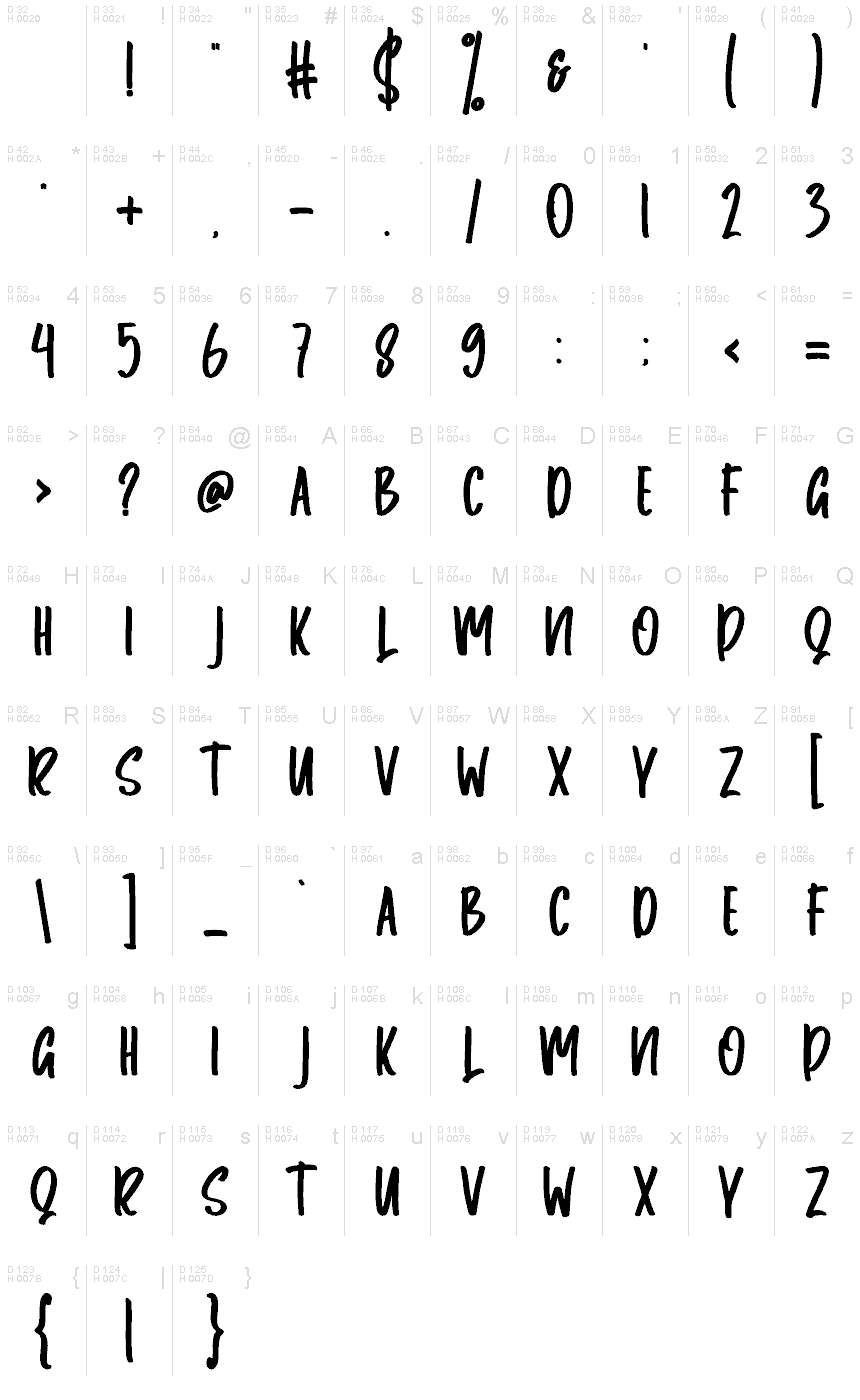
Ramens
Ramens font by Skiiller Studio is a condensed handwritten script typeface with classical and expressive forms. The font feels modern, casual, and energetic, offering an overall hand-drawn feel to your design projects. Ramens’ playful letters are designed to look youthful and friendly in large sizes, sharing their magic also with body text when moderately used.